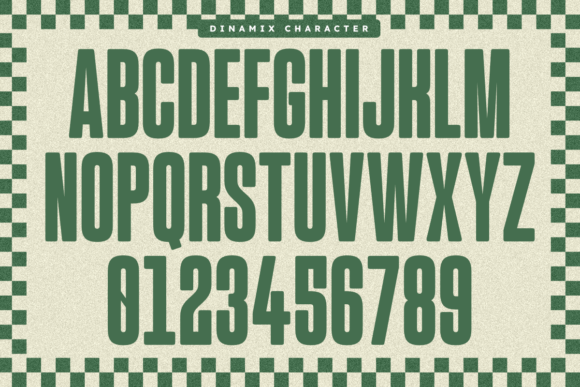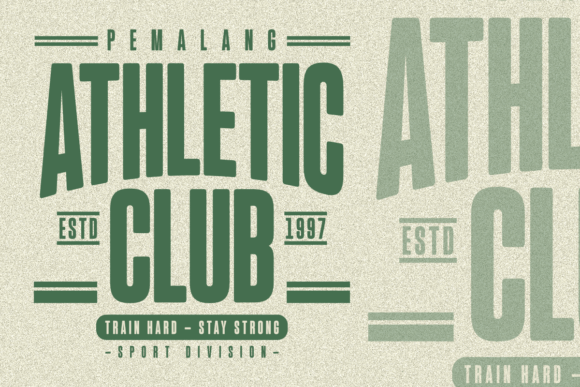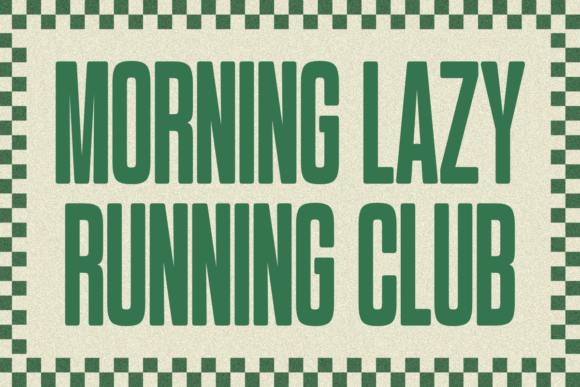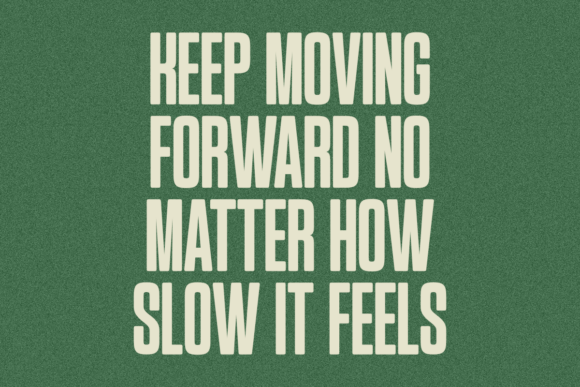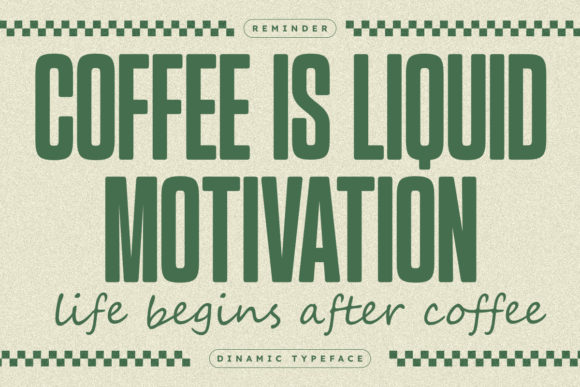
Introducing Dinamic Font: The Ultimate Retro Condensed Sans Font for High-Impact Visual Storytelling
In the world of typography, few fonts manage to strike a balance between vintage charm and modern elegance. However, Dinamic font is an exception – a bold and versatile retro condensed sans font that seamlessly blends nostalgic appeal with a clean, minimalist aesthetic. Designed specifically for high-impact visual storytelling, Dinamic is the perfect choice for graphic designers, clothing brands, and print on demand entrepreneurs looking to add a touch of timeless character to their creative projects.
A Perfect Blend of Vintage Charm and Modern Elegance
Dinamic’s tall and solid structure commands attention while maintaining a sleek and professional elegance. Its smooth, slightly rounded edges give it a warm, approachable feel reminiscent of classic 70s and 80s typography. This unique blend of vintage and modern elements makes Dinamic an essential asset for any creative toolkit. Whether you are creating trendy apparel designs, social media graphics, or eye-catching logos, Dinamic provides excellent readability and a unique, stylish flair.
Key Features of Dinamic Font
- Retro Condensed Sans Design: Dinamic’s condensed design makes it perfect for headlines, titles, and short phrases, while its retro elements add a touch of nostalgia to any design.
- Bold and Versatile: With its bold structure, Dinamic commands attention and makes a statement. Its versatility ensures it can be used in a wide range of creative projects.
- Clean and Modern Aesthetic: Despite its retro elements, Dinamic boasts a clean and modern aesthetic that ensures it remains relevant and stylish.
- Excellent Readability: Dinamic’s clear and concise design makes it easy to read, even at smaller sizes.
Ideal for Graphic Designers, Clothing Brands, and Print on Demand Entrepreneurs
Dinamic is specifically designed for high-impact visual storytelling, making it an ideal choice for graphic designers, clothing brands, and print on demand entrepreneurs. Its unique blend of vintage charm and modern elegance ensures that it stands out in any design. Here are some ways you can use Dinamic:
- Graphic Design: Use Dinamic to create eye-catching logos, social media graphics, and marketing materials that demand attention.
- Clothing Brands: Add a touch of timeless character to your apparel designs with Dinamic’s bold and stylish font.
- Print on Demand: Dinamic is perfect for print on demand entrepreneurs looking to create unique and stylish designs for their products.
Crafting with Dinamic: Ideal for Vinyl Cutting Projects
Crafters will also find Dinamic ideal for vinyl cutting projects using Cricut or Silhouette machines. Its smooth and professional finish ensures that your stickers and decals look great and are easy to cut. With Dinamic, you can:
- Create Professional-Looking Stickers: Dinamic’s clear and concise design makes it perfect for creating stickers and decals for any project.
- Easily Cut with Cricut or Silhouette Machines: Dinamic’s smooth design ensures that it cuts easily and accurately with popular vinyl cutting machines.
In conclusion, Dinamic font is a versatile and stylish retro condensed sans font that is perfect for high-impact visual storytelling. Its unique blend of vintage charm and modern elegance makes it an essential asset for any creative toolkit. Whether you are a graphic designer, clothing brand, print on demand entrepreneur, or crafter, Dinamic provides excellent readability and a unique, stylish flair that is sure to elevate your designs.